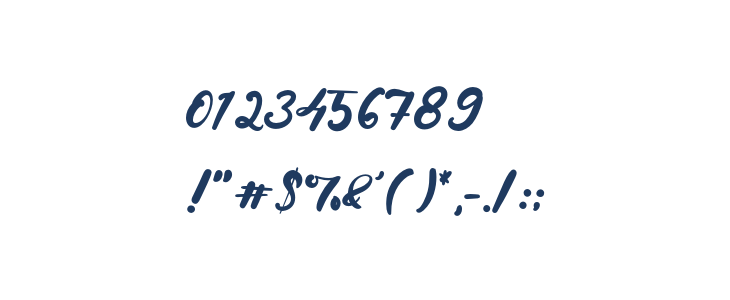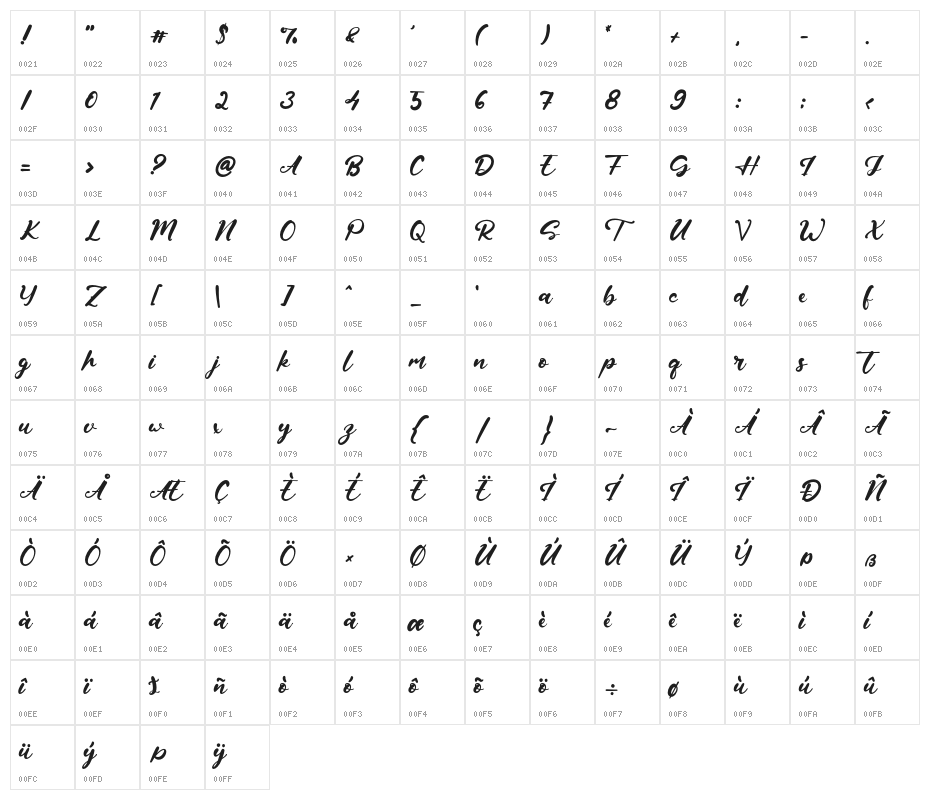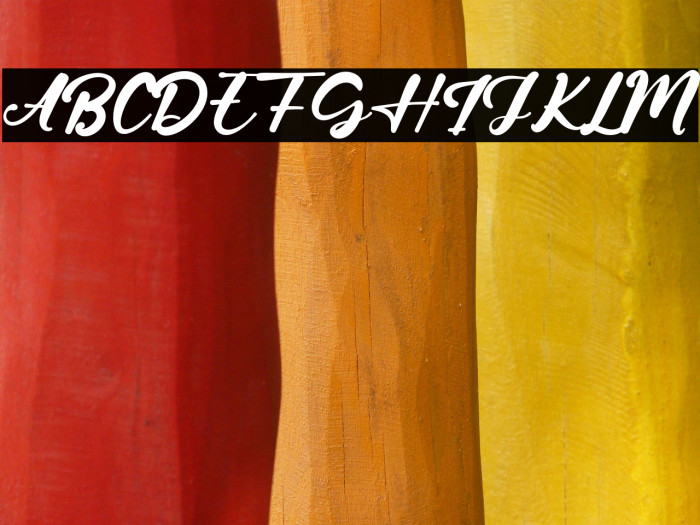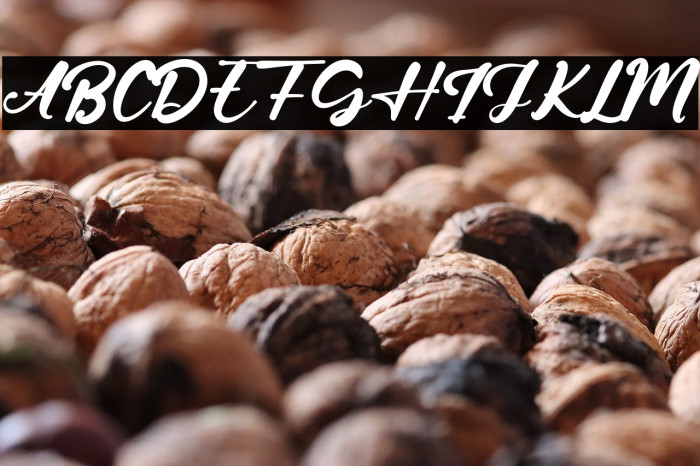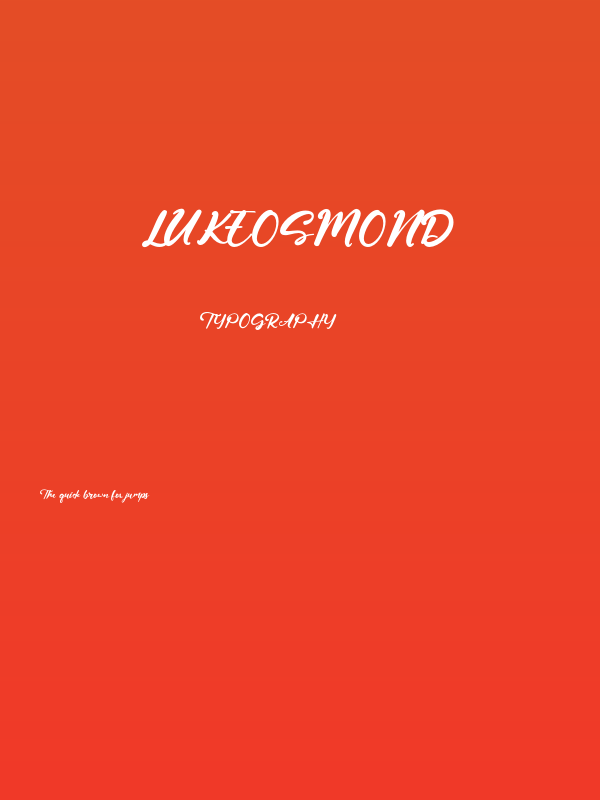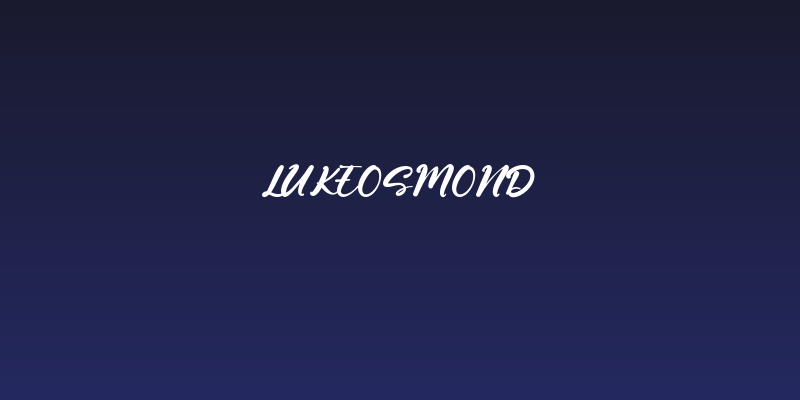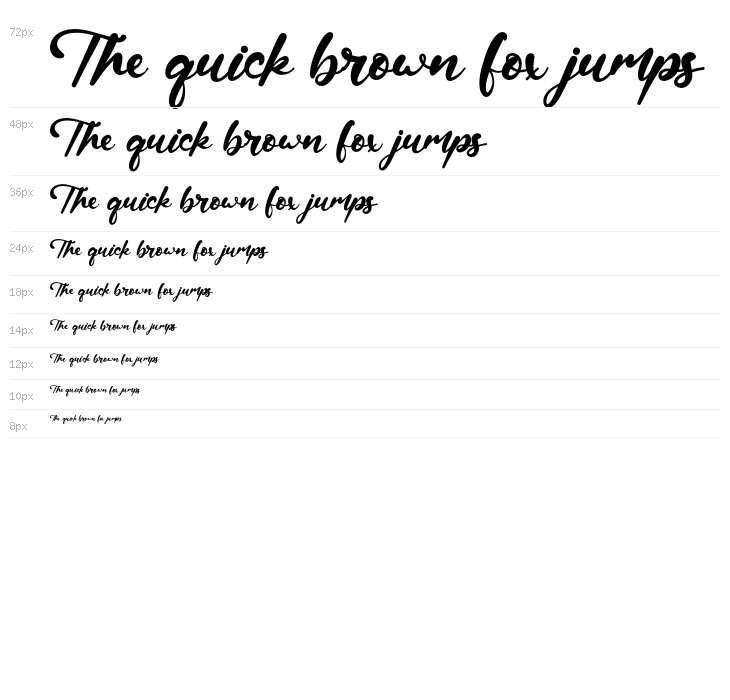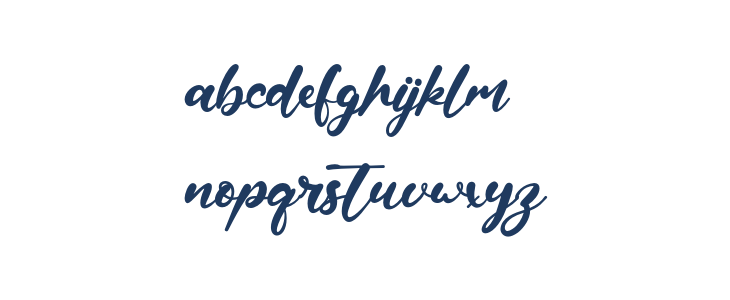
LukeOsmond Font
LukeOsmond Description
This font features a dynamic and flowing script style, characterized by its elegant and cursive letterforms. The uppercase letters exhibit a graceful, sweeping motion with distinctive loops and curves, while the lowercase letters maintain a consistent fluidity that enhances readability. The numerals and special characters are crafted with the same attention to detail, ensuring a cohesive look across all glyphs. The font's design is reminiscent of traditional calligraphy, yet it maintains a modern touch that makes it versatile for various applications. Its bold strokes and smooth transitions between thick and thin lines add a sense of sophistication and flair.
| Use Case | Logos, Headlines, Invitations |
| Proposed Projects | Ideal for wedding invitations, branding, logo design, greeting cards, and elegant packaging. |